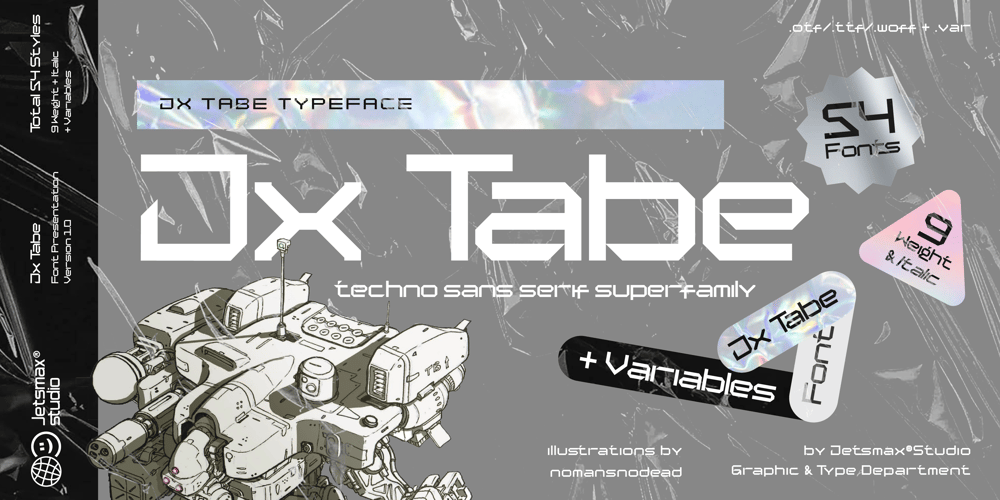
Jx Tabe
Jx Tabe font
Jx Tabe Font Family was designed by Khairil Anwar and published by Jetsmax Studio. Jx Tabe contains 55 styles and family package options. Jx Tabe is New techno sans serif typeface with super family. inspired by robotic, mecha and aethetic machine – a font suited for the future technology. This multi-purpose typeface will grab reader’s attention with its stylish and neat design. With 9 Weight + Italic and 2 Axis Condensed and Expanded, With total 54 styles its a timeless workhorse for many possible application from branding to editorial.